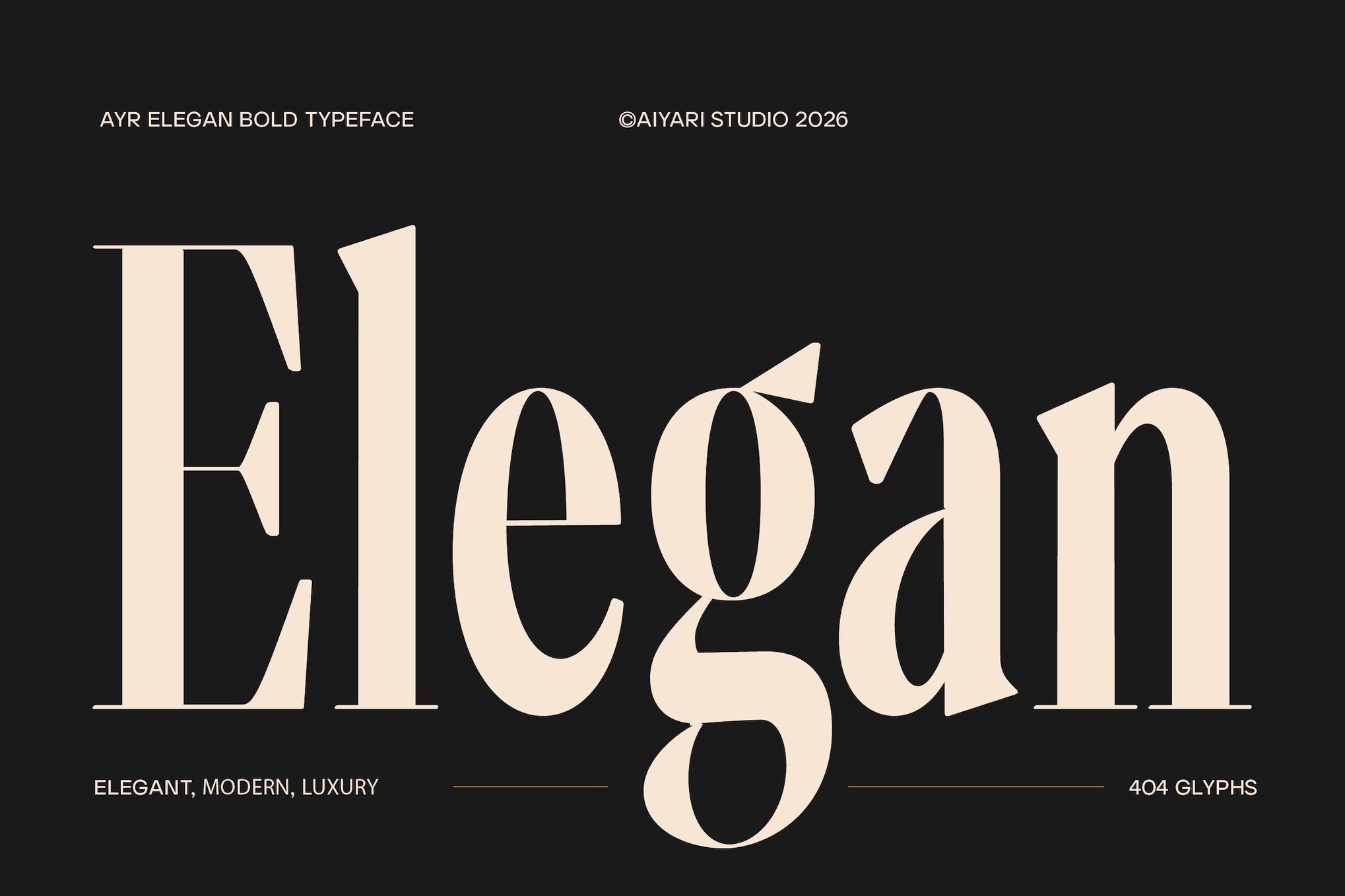
Elegan – Modern Serif Font
Elegan – Modern Serif Font is a professionally designed typeface that delivers clarity, structure, and consistent performance across various design applications. Elegan is a high-contrast display serif crafted for brands that want to look unmistakably luxurious. Its tall, condensed capitals and razor-sharp terminals bring couture-level sophistication to every headline, blending the elegance of vintage fashion editorials with the confidence of contemporary luxury branding.
Designed to make a statement, Elegan shines at large sizes perfect for logos, magazine covers, beauty and fragrance packaging, gourmet food labels, hotel and hospitality branding, and event invitations. The same striking contrast that commands attention on a cover transforms even a two-word logo into a memorable signature.
Behind its refined appearance is a versatile character set of 404 glyphs, including standard ligatures (fi, fl, ffi, ffl, and more), fractions, currency symbols, and case-sensitive punctuation, all accessible through OpenType features. With extensive Latin language support covering Western, Central, and Eastern European languages, Elegan is built for brands with an international presence.
Elegan comes in a single Bold weight, intentionally designed as the hero. One distinctive style, crafted to deliver maximum impact.